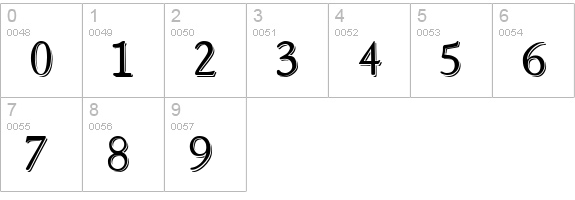
NewStyle Embossed font is a stunning display typeface that exudes elegance and sophistication. With its unique embossed effect, this font adds a touch of luxury to any design project. The intricate details and stylish letterforms make it perfect for creating eye-catching headlines, logos, and branding materials. What makes NewStyle Embossed font even more appealing is that it is available for free download at FontsMarket.com. Now you can effortlessly elevate your designs with this exquisite font without having to spend a dime. Don't miss out on the opportunity to enhance your projects with the timeless charm of NewStyle Embossed font. Download it today and let your creativity shine!